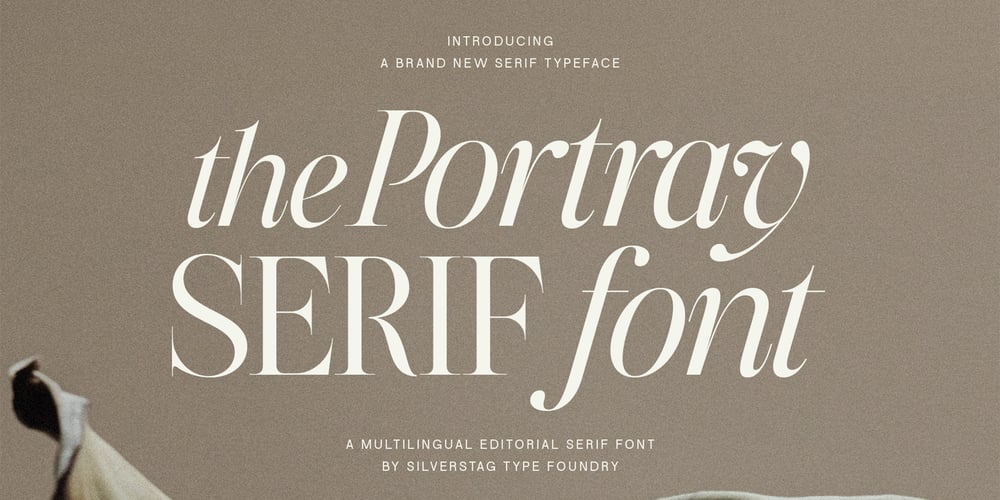
The Portray Font Family was designed by SilverStag and published by SilverStag. The Portray contains 2 styles and family package options. Introducing The Portray: A Serif Typeface for the Modern AestheteEmbrace the allure of timeless elegance with The Portray, a meticulously crafted serif typeface that seamlessly blends classic charm with contemporary flair. Its high-contrast strokes and graceful curves create a visual symphony that captivates the eye and elevates any design. Whether you’re crafting a sophisticated editorial layout, a striking brand identity, or an engaging website, The Portray’s versatility and refined beauty will set your work apart.Immerse yourself in the world of The Portray, where each character has been thoughtfully designed to exude both strength and subtlety. From its meticulously sculpted serifs to its perfectly balanced proportions, this typeface is a testament to the enduring power of classic typography. Its true italics, with their own unique personality, add a touch of dynamic movement and visual interest, allowing you to create designs that are both captivating and effortlessly readable.Key Features: Effortless Elegance: The Portray’s clean lines and balanced proportions exude classic charm, making it ideal for a wide range of applications. Chic Ligatures: Add a touch of personality with a curated collection of ligatures, creating unique and eye-catching letter combinations. OpenType Features: Take full control of your typography with advanced OpenType features, including stylistic alternates and ligatures. Multilingual Support: With support for over 90 languages, The Portray ensures your message reaches a global audience. True Italics: The Portray’s italics are not simply slanted versions of the regular font. They have been carefully designed to complement the upright characters and create a harmonious visual flow. Perfect for: Editorial Design: Magazines, newspapers, books – The Portray’s readability and elegance make it perfect for long-form text. Branding & Logos: Create a sophisticated and memorable brand identity with The Portray’s timeless appeal. Web Design: The Portray’s clean lines and high contrast ensure optimal legibility on screens of all sizes. Packaging & Print: Elevate your product packaging and printed materials with a touch of refined luxury. Invitations & Stationery:Make a lasting impression with The Portray’s graceful presence on invitations, greeting cards, and other stationery. Experience the difference with The Portray – where elegance meets versatility. Download today and unlock a world of typographic possibilities.Happy creating everyone!